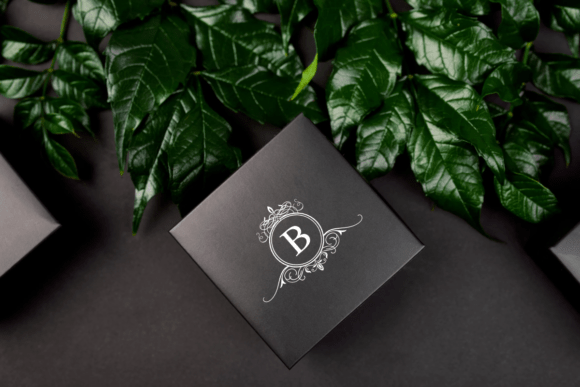
Vintage Monogram Font
Vintage Monogram is a handwritten font. You can use it for taking notes, writing a diary, or making greeting cards. However, you can still use it for other designs, such as banners, content, mugs, cards, shirts, stationery, social media posts, and more!